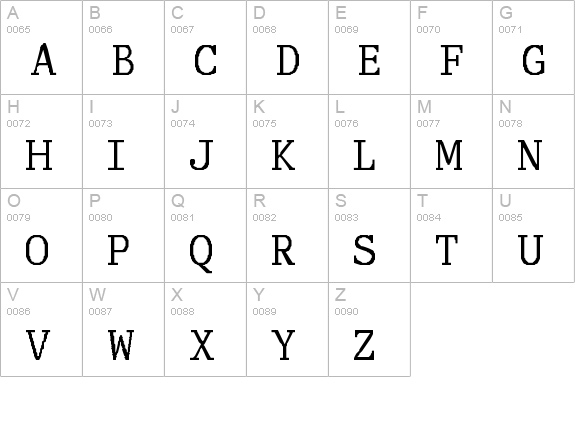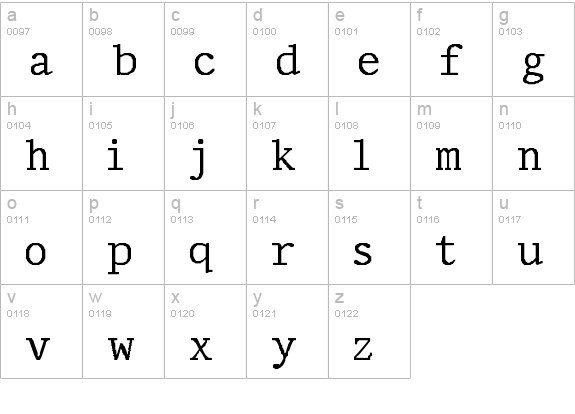
Corporal Font Details
Corporal font is a sleek and modern typeface that exudes professionalism and sophistication. With its clean lines and sharp edges, Corporal font is perfect for creating a polished and contemporary look in any design project. This versatile font is ideal for a wide range of applications, from branding and marketing materials to website design and social media graphics. The best part? Corporal font is completely free to download at FontsMarket.com. Whether you're a seasoned designer looking to add a fresh new font to your collection or a beginner exploring typography for the first time, Corporal font is the perfect choice. Download it today and elevate your designs with this stylish and elegant typeface.